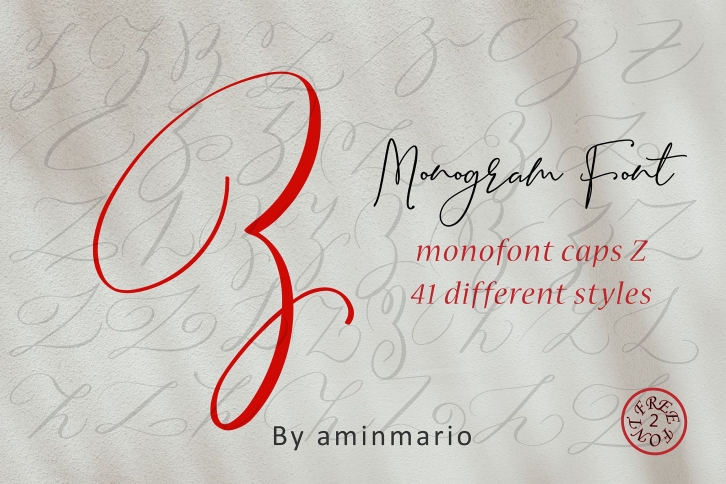
We introduce our new product called MONOGRAM Z
This MONOGRAM is natural handwriting of capital Z with 41 different styles.
Perfect for t-shirt designs, branding, logos, invitations, headers, or design projects with initials.
This is not for writing words or sentences, but for monograms. Bonus 2 Font that contains the uppercase and lowercase to support it.